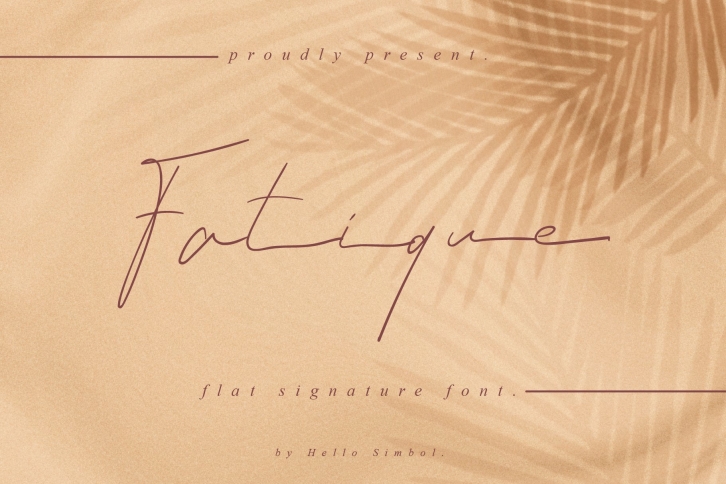
Fatique is a beautiful font that was designed by Hello Simbol. It's a great choice for designers and creatives who need such a font. It was released on December 28, 2020 and the file size is 11.80 MB. Fatique may give a more youthful, expressive and casual look to your project. It is a very beautiful, refined, elegant, and high-quality font.